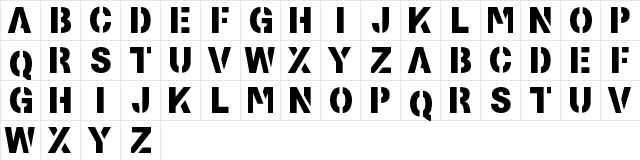
Lost Highway Regular
Design Context for Lost Highway Typeface
Lost Highway takes a measured approach to typography — its balanced proportions and neutral character make it a reliable workhorse for both digital and print work.
Pro Tip: Use Lost Highway in both headline and body roles to test its range before committing to a single application.